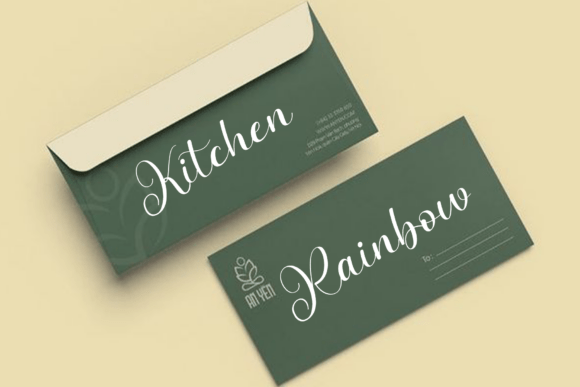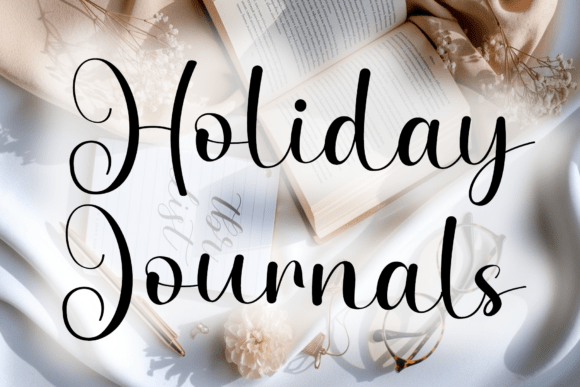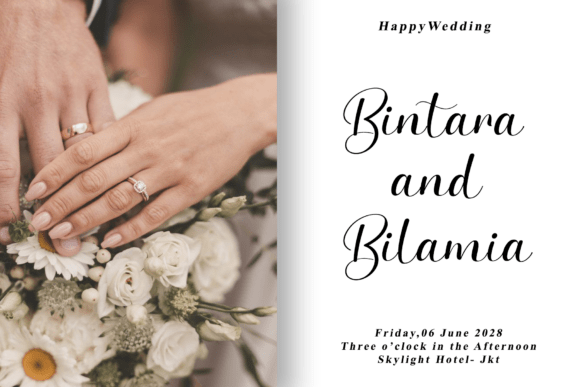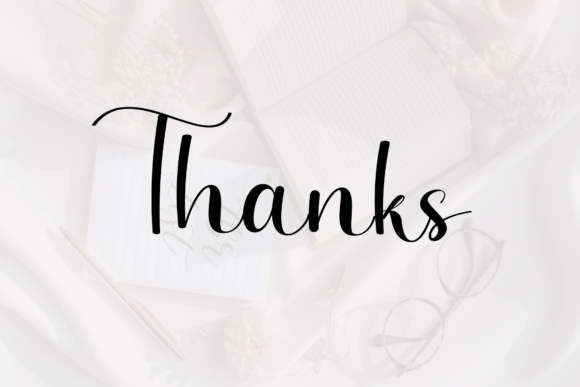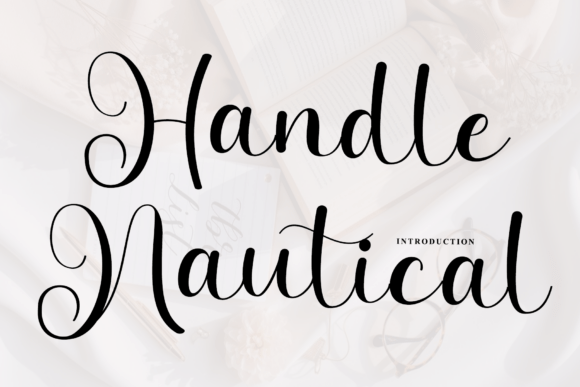
Introducing Handle Nautical: The Elegant Script Font for Artisanal Branding
In the world of typography, few fonts manage to strike a balance between sophistication and warmth. Handle Nautical, a stunning script font, achieves just that by merging calligraphic flair with an organic aesthetic. This beautiful typeface is perfect for designers and crafters seeking to add a touch of elegance to their projects.
The Characteristics of Handle Nautical
Handle Nautical boasts a unique blend of high-contrast visual rhythm, characterized by thick, grounded downstrokes and delicate hairline connectors. This contrast creates a sense of dynamic movement, making the font perfect for headlines, titles, and branding applications. The font’s defining feature, however, is its sweeping, looping ascenders that evoke a sense of customized, artisanal artistry.
These distinctive ascenders give Handle Nautical a sense of fluidity and creativity, making it an excellent choice for artisanal food branding, boutique product packaging, and upscale lifestyle marketing. The font’s warm, organic feel also lends itself well to creative editorial titles, adding a touch of sophistication to any publication.
Design Applications for Handle Nautical
Handle Nautical’s versatility makes it an excellent addition to any designer’s toolkit. Here are some ideal applications for this stunning script font:
- Artisanal Food Branding: Handle Nautical’s warm, organic feel makes it perfect for branding artisanal foods, such as baked goods, specialty teas, or gourmet cheeses.
- Boutique Product Packaging: The font’s elegant, sophisticated aesthetic makes it an excellent choice for packaging high-end products, such as luxury candles, skincare products, or jewelry.
- Upscale Lifestyle Marketing: Handle Nautical’s calligraphic style and high-contrast visual rhythm make it perfect for marketing upscale lifestyle products, such as luxury cars, high-end fashion, or travel experiences.
- Creative Editorial Titles: The font’s unique blend of sophistication and warmth makes it an excellent choice for creative editorial titles, such as magazine headlines, book covers, or blog titles.
Why Choose Handle Nautical?
With so many fonts available, why choose Handle Nautical? Here are just a few reasons why this stunning script font stands out:
- Unique Blend of Style and Warmth: Handle Nautical’s combination of calligraphic style and organic aesthetic makes it a standout in the world of typography.
- High-Contrast Visual Rhythm: The font’s high-contrast visual rhythm creates a sense of dynamic movement, making it perfect for headlines, titles, and branding applications.
- Customized, Artisanal Feel: Handle Nautical’s sweeping, looping ascenders give it a customized, artisanal feel that’s perfect for artisanal branding and packaging.
Handle Nautical is a sophisticated and rhythmic script font that balances calligraphic style with a warm, organic aesthetic. Its unique blend of high-contrast visual rhythm, sweeping ascenders, and delicate hairline connectors makes it perfect for artisanal food branding, boutique product packaging, upscale lifestyle marketing, and creative editorial titles. Whether you’re a designer or crafter, Handle Nautical is an excellent addition to your toolkit.
So why settle for a generic font when you can add a touch of elegance and sophistication to your projects with Handle Nautical? Discover the beauty of this stunning script font and take your designs to the next level.